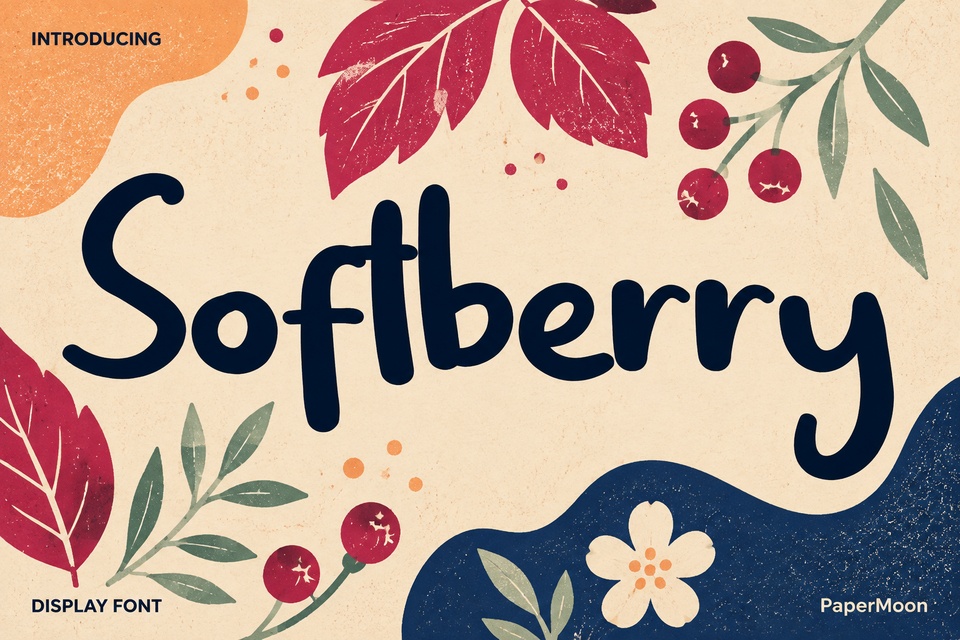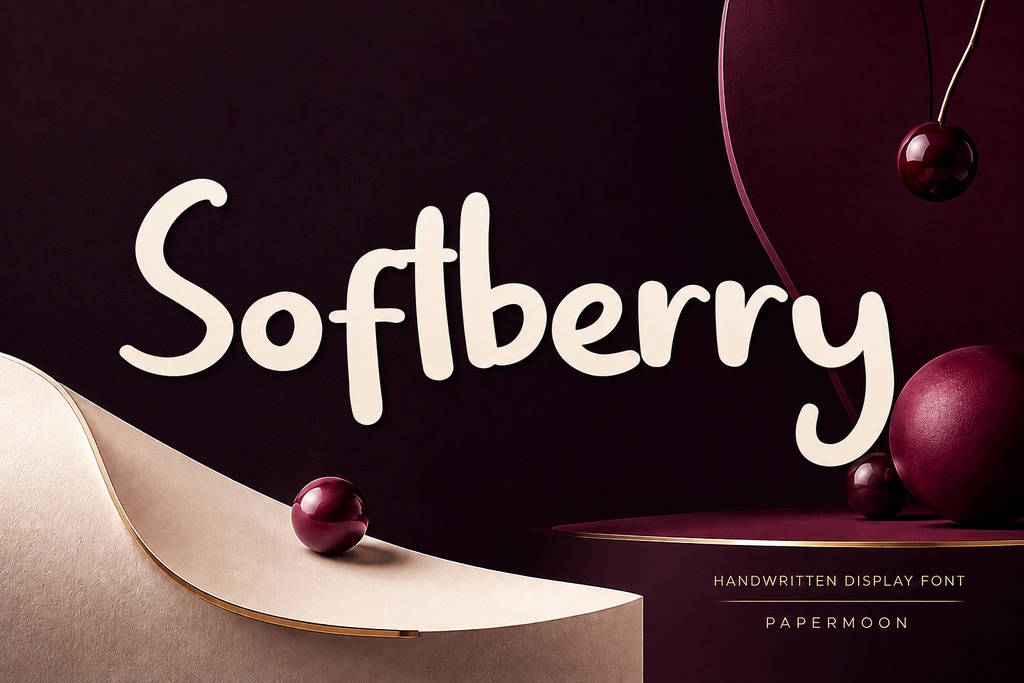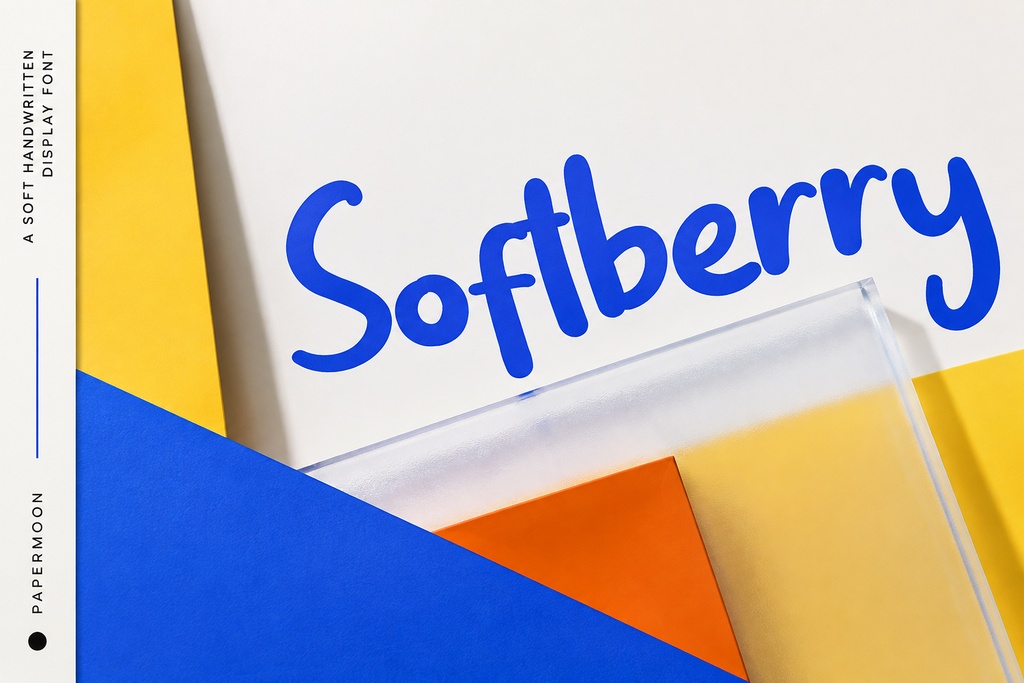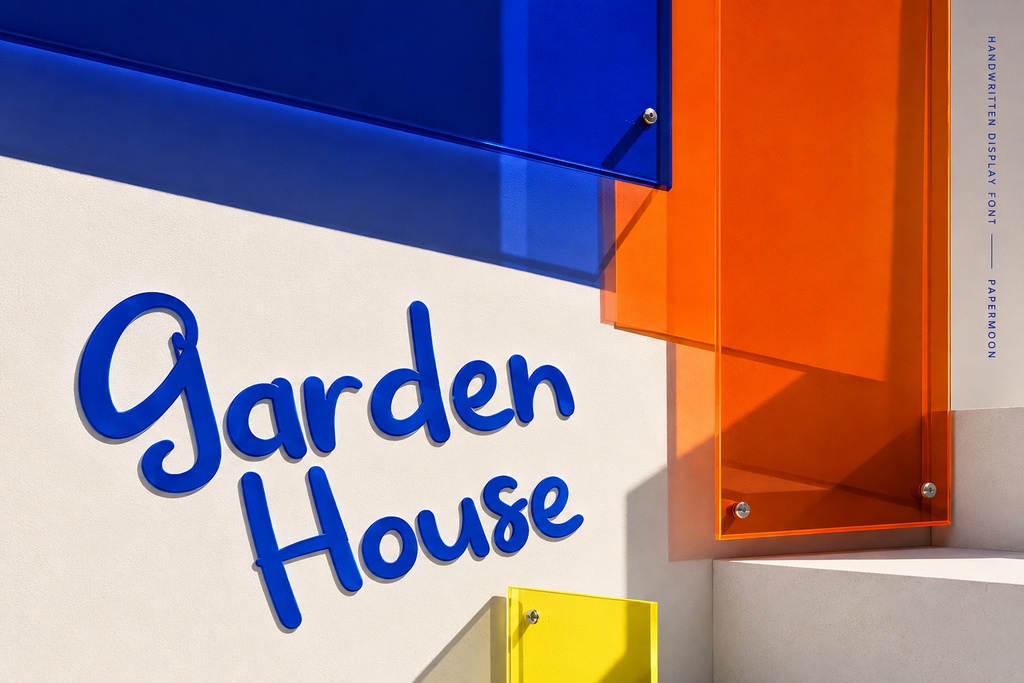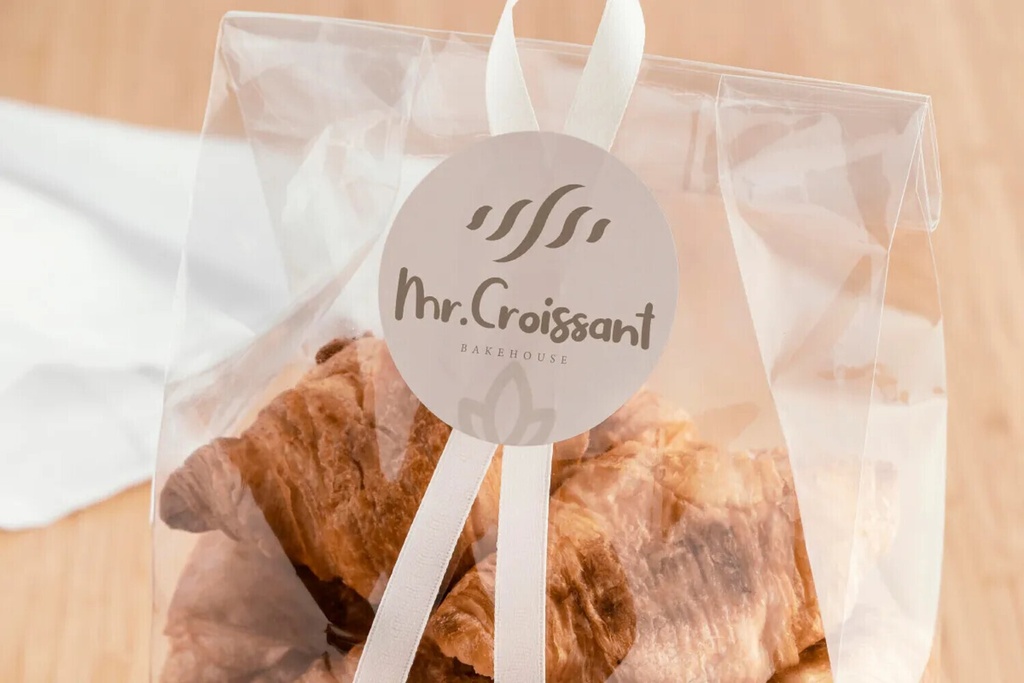
SoftBerry — Playful Handwritten Brush Font
SoftBerry is a playful handwriting font with a genuine handwritten brush feel—the kind of lettering that makes a project feel personal the second it’s on the page. Every character carries a lively, hand-drawn bounce that adds personality and charm to invitations, greeting cards, social media posts, packaging, and any design that wants to feel friendly instead of factory-made. This is a display-oriented typeface: it does its best work in headlines, wordmarks, and anything sized large enough to show off its brush stroke texture. The typeface ships as a single Regular style—one voice, no weight juggling—built to stay consistent across everything you drop it into. Inside the file, you get 214 carefully crafted glyphs: complete Basic Latin uppercase and lowercase, numerals, punctuation, and symbols, so everyday phrases, names, and captions typeset cleanly without hunting for missing characters. What makes SoftBerry special is what’s hidden under the surface. The font carries an OpenType feature set with ligatures (liga) and an access-all-alternates set (aalt), plus a set of decorative swoosh characters encoded in the Private Use Area (PUA). That PUA encoding is the practical part: you can reach every decorative swoosh and ornament glyph straight from your design app’s glyph panel or character map—no extra software, tracing, or guesswork. Add a flourish under a greeting, tuck a swoosh behind a monogram, or string a few ornaments into a divider, and the font does the detail work for you. Key features: Handwritten brush style—playful, hand-drawn letterforms with personality and charm. 214 glyphs—uppercase, lowercase, numerals, punctuation, and symbols in one file. Ligatures (liga)—connected, well-spaced text right out of the box. PUA-encoded swoosh characters—decorative ornaments and flourishes accessible directly from the glyph panel, with no extra software needed. Carefully kerned—balanced, consistent spacing across the full character set. OTF, TTF, WOFF, and WOFF2—desktop, web, and mobile covered in a single package. Where it shines: Greeting cards and gift tags, birthday and baby shower invitations, social media graphics, quote posters, branding for boutiques and small businesses, scrapbooking, sticker and T-shirt designs, and any craft project that needs a warm, handwritten touch. Compatibility: Works in Adobe CC, including Illustrator, InDesign, and Photoshop, as well as Figma, Canva, Procreate, Affinity, Cricut Design Space, and Silhouette Studio. It also works with any modern web stack through the included WOFF and WOFF2 webfonts. It has been tested and is ready to use on Windows and Mac with simple installation. License: This listing is licensed for commercial use under the Cubebrush Commercial License. Use it in client work and products you sell, with no attribution required. The glyph outlines are a hand-built typeface with no AI-generated letterforms, so you can use it in commercial projects with confidence. Give your next project a voice that feels written by hand. Add SoftBerry to your cart and start designing. Buy now $9.00 Add to bundle & save Add $20+ in products to save 5% on your bundle X http://cbr.sh/n8ktw3 Sales generated through this URL are only charged a 5% fee - Share away! Report this product